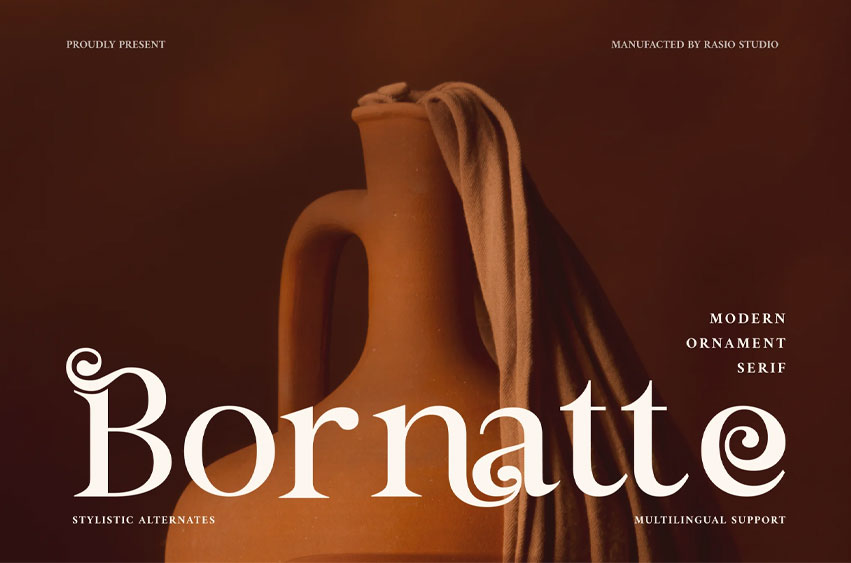
Bornatte Font
Bornatte Font Modern Ornament Serif Font blends refined classic elegance with expressive ornamental detail. Each character is crafted with subtle curves, graceful contrast, and decorative alternates that give it a unique personality. Designed by Rasio Studio, Bornatte captures a sense of sophistication and warmth, perfect for luxurious and editorial applications.
Its balanced proportions and delicate swirls make Bornatte a modern reinterpretation of vintage serif aesthetics, ideal for both display headlines and refined typographic compositions. With multilingual support and stylistic alternates, this font offers flexibility for designers seeking timeless elegance with an artistic twist.
• Stylistic Alternates & Ligatures
Relevance and Use Cases is perfect for luxury branding, editorial design, fashion magazines, beauty product packaging, invitations, stationery, wedding logos, boutique branding, and artistic typographic compositions that demand elegance and ornamentation.
Add artistic grace to your designs with Bornatte — a modern ornamental serif that combines timeless beauty with decorative sophistication for refined visual storytelling.